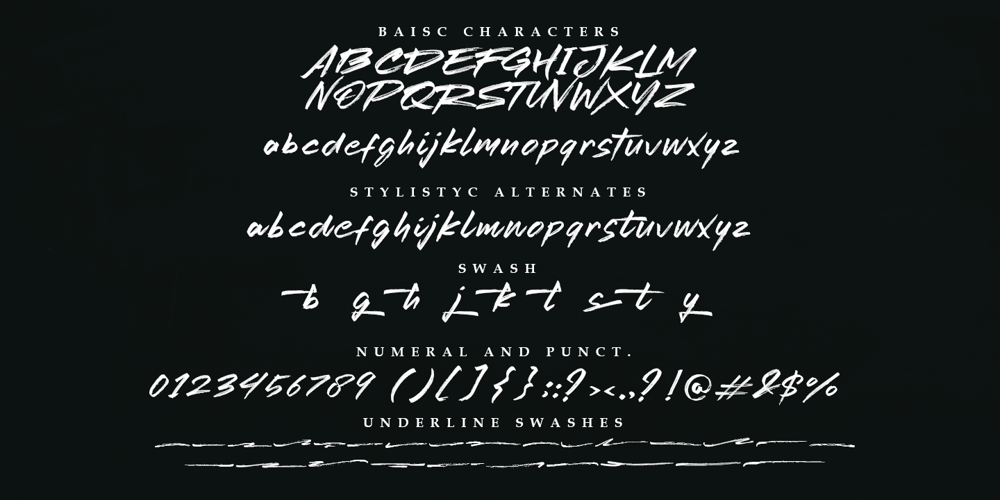
Redtowns Font Family was designed by Muhammad Sirojuddin and published by Lettersiro. Redtowns contains 2 styles and family package options. Redtowns is our newest font that was made manually using brush pen and paper. This font is great for project like clothing, signatures, watermarks, use with photography, posters, and branding. Redtowns also comes with underline swashes that can be paired perfectly. Just do with your own creativity, this is easy use font, will make your project easier. What’s oncluded: -Redtowns TTF -Redtowns Swashes TTF – OpenType Features: stylistic alternates, swash, ligature